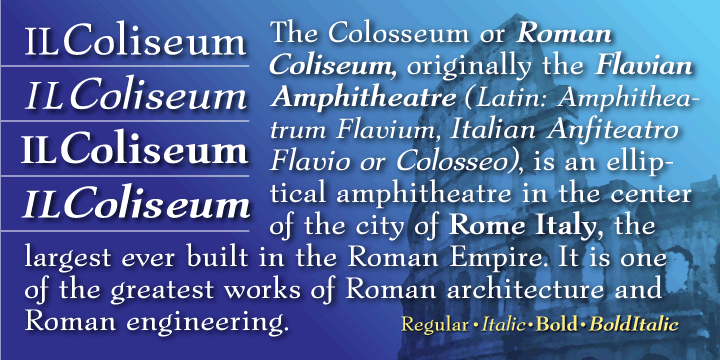
First seen on MyFonts: August 30th, 2007 Il ColiseumA formal text font designed for legibility without calling any notice to the actual font design, suitable for documents, books and intense text requirements. Not quite what you’re looking for? Try looking at more fonts like this. |